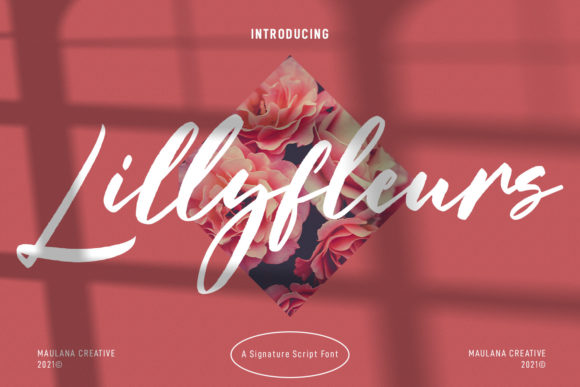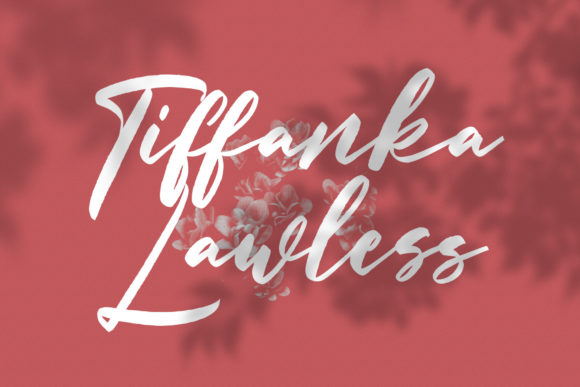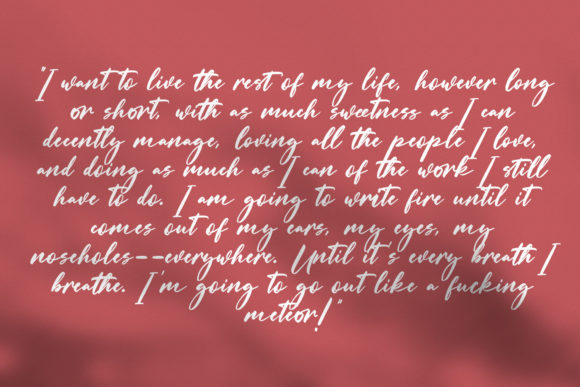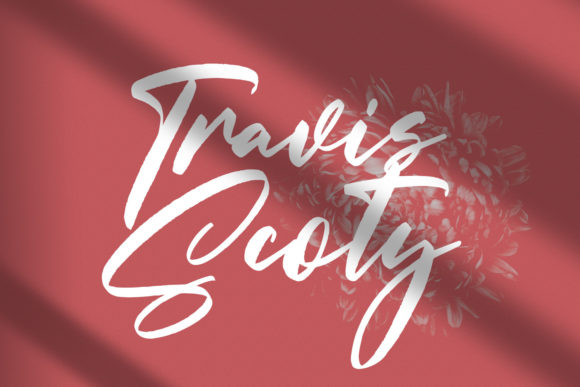
About Lillyfleurs Signature Font
Lillyfleurs Signature is a lovely and timeless handwritten font. It is the best choice for creating eye catching logos, branding and quotes. Every letter has a unique and beautiful touch, which will make your design come alive!